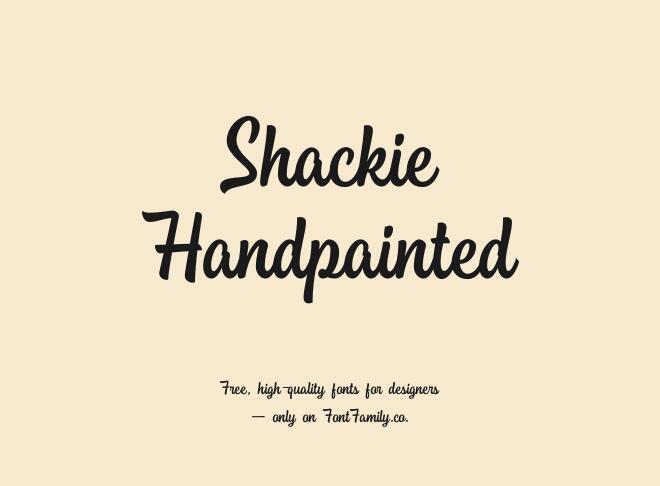
Shackie Handpainted Font
Shackie Handpainted Font is a unique, rustic, and playful font that brings a touch of creativity to any design project. It's a handwritten, brush-styled font that's been carefully hand-painted to give your designs an authentic, rustic feel. Its versatile style makes it perfect for logo designs, branding projects, social media posts, and much more. It's comparable to other playful handwritten fonts but stands out with its hand-painted, rustic charm. Its expressive nature makes it a great choice for those looking to add a touch of personality to their designs. The Shackie Handpainted Font is free for personal use, making it a cost-effective choice for designers on a budget.